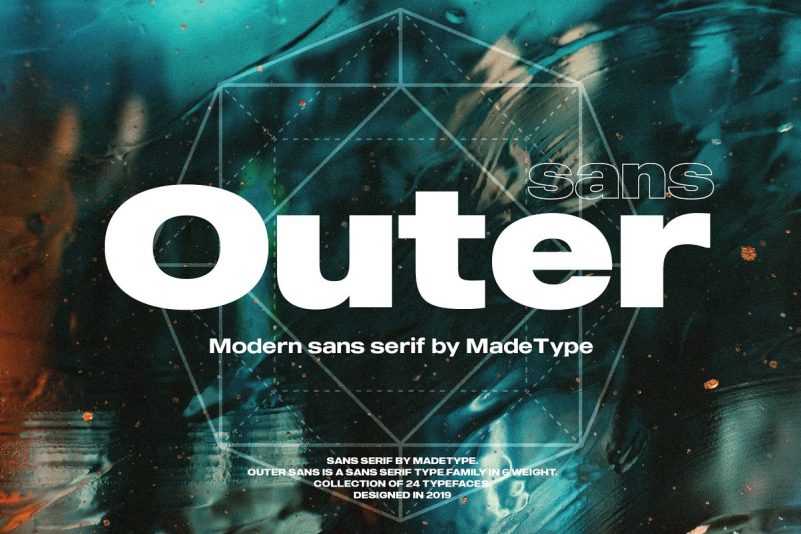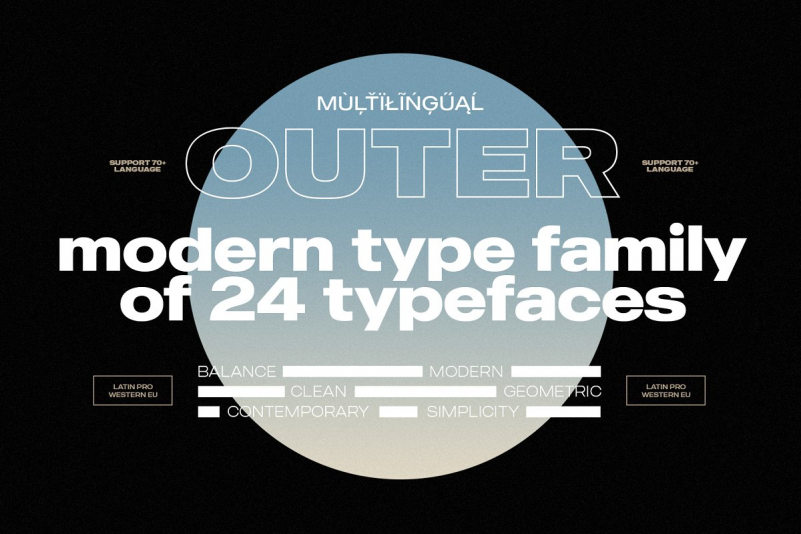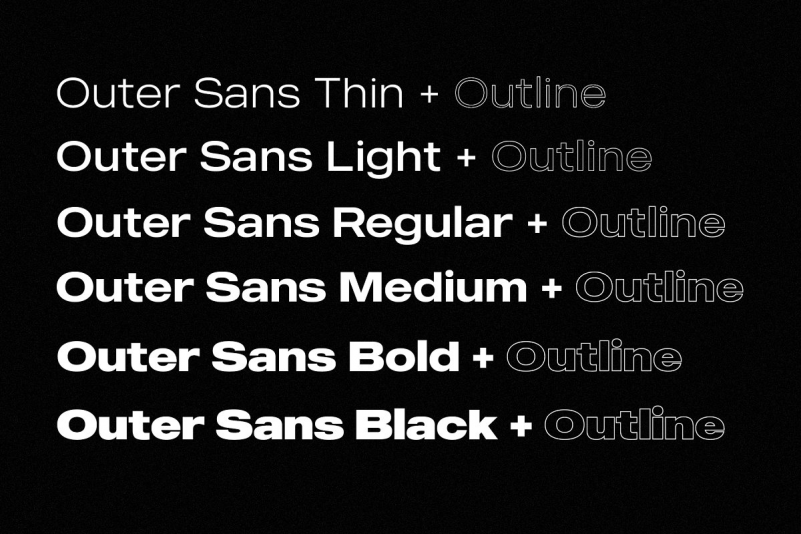
MADE Outer Font
MADE Outer Sans is a modern type family of 24 typefaces.
The Outer Sans type family will perfect for many project: fashion, invitations, music cover, game poster, cinema, book, magazines, logo, branding, photography, wedding invitations, quotes, blog header, poster, advertisements, t-shirt, etc.